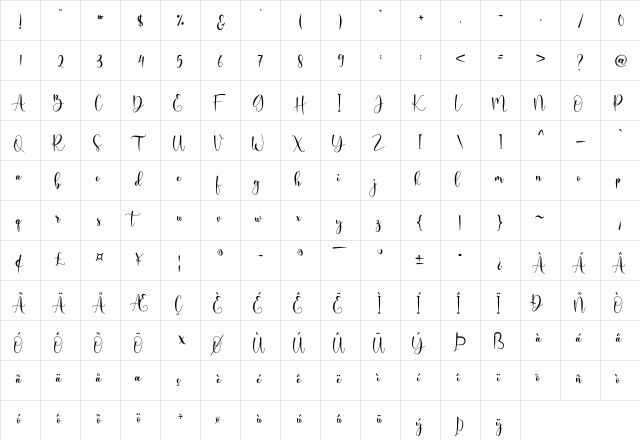
Ayalda Regular
| Designer | Nissa Nana |
Design Context for Ayalda Typeface
Ayalda is a composed and adaptable typeface that performs quietly and consistently across a wide range of design contexts.